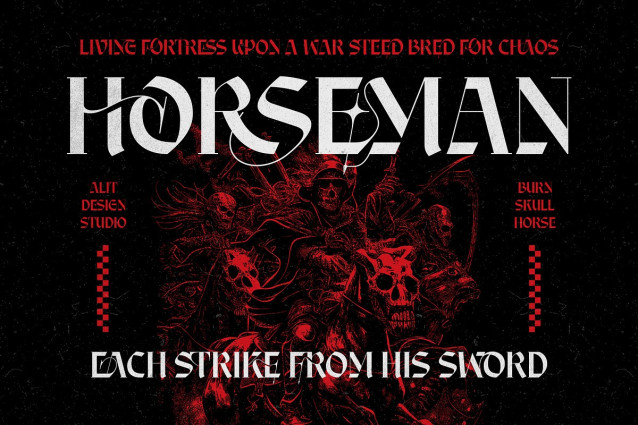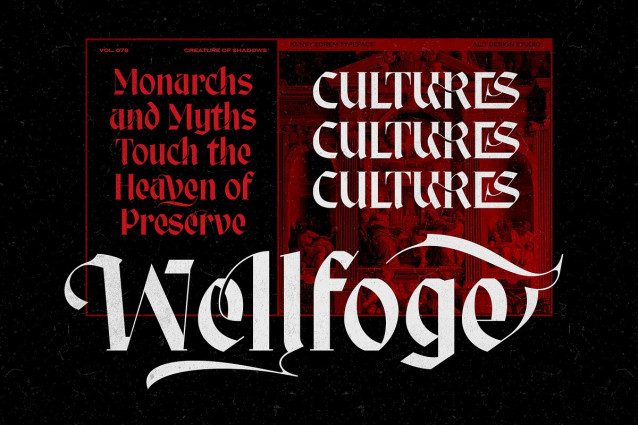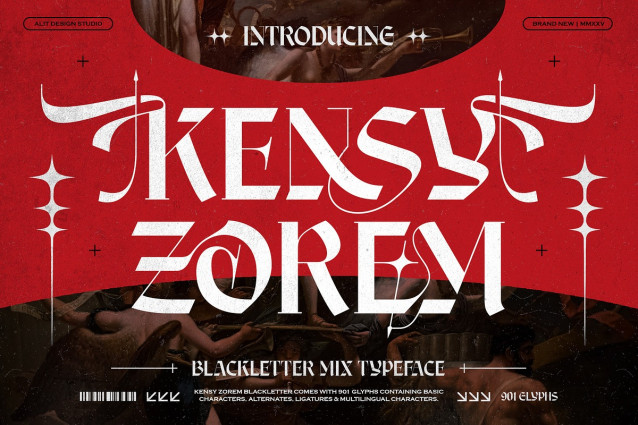
Kensy Zorem Font
Kensy Zorem is a bold and expressive typeface that merges the ornate intricacies of blackletter with the clean elegance of modern serif design. This hybrid creation is built for creatives who want to make a powerful visual impact—bridging the gap between historical gravitas and contemporary edge.
Crafted by Alit Design Studio, Kensy Zorem brings a sense of epic drama and streetwise style, drawing inspiration from Roman heroism, mythological storytelling, and modern fashion graphics. Whether you’re designing for branding, apparel, editorial spreads, or digital campaigns, Kenzy Zorem adds a distinctive and rebellious flair.